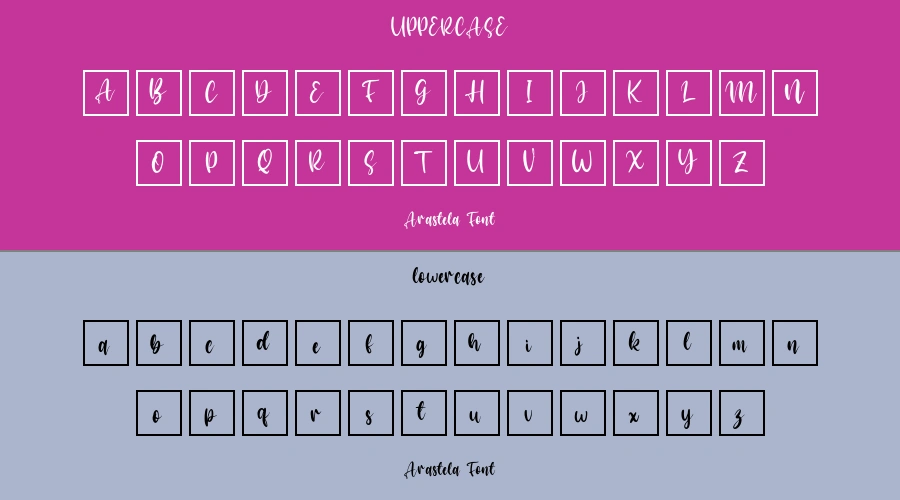
About Arastela Font
Arastela Font stands out for its distinctive combination of flourishes and visual hierarchy. Ideal for government publications, it provides the adaptability and artistic value that professional projects demand. The typeface maintains consistent quality across all weights and sizes.
Key features include refined organic forms and practical case-sensitive forms, enhancing typographic expression. In brand logos applications, Arastela Font demonstrates exceptional compatibility. The stroke modulation and creative versatility contribute to its distinctive character and professional appeal.